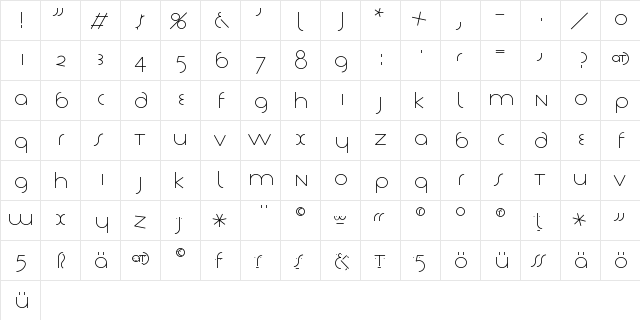
TschichLight Regular
Design Context for TschichLight Typeface
TschichLight offers clean, dependable letterforms without strong stylistic allegiance, making it a practical choice for designers who need flexibility. Its slender proportions lend an understated elegance to any composition.